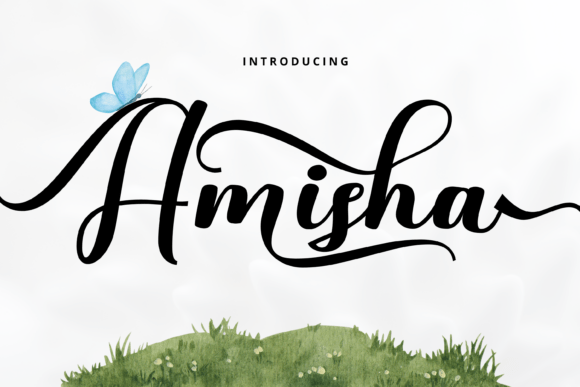
The Perfect Script Font for Your Next Design Project
As a designer, there’s nothing quite like the thrill of finding the perfect font to bring your vision to life. You’ve spent hours poring over samples, trying to find that elusive combination of style and sophistication that sets your project apart. And then, like a ray of sunshine on a cloudy day, you stumble upon it – a font that makes your heart skip a beat and your creativity soar. For many designers, that font is Amisha, a charming script font that flows with soft curves and gentle movement.
Amisha Font is more than just a pretty face – it’s a versatile tool that can add beauty and personality to any design project. Whether you’re crafting wedding stationery, creating social media graphics, or designing packaging, Amisha brings a touch of warmth and timeless elegance that’s hard to resist. And with its handwritten yet refined feel, it’s the perfect choice for adding a feminine touch to your work.
Amisha Font Key Features
- Unique Characteristic: Amisha Font features a unique blend of modern and traditional design elements, making it suitable for various design projects
- Font Style: Available in multiple weights (Light, Regular, Bold, Black) and styles (Italic, Oblique, Regular)
Amisha Font Review
I recently had the chance to work with the Amisha font, and I must say it’s a unique and intriguing typeface. Here are my thoughts on what works well and what doesn’t.
- ✨ Elegant and refined aesthetic: Amisha font has a distinctive feel to it, with clean lines and a sophisticated look that’s perfect for high-end branding and design projects.
- ✨ Versatility: Despite its elegant feel, Amisha font is surprisingly versatile and can be used in a variety of contexts, from body text to headlines.
- ✨ Great for digital design: Amisha font looks great on screens and is a great choice for digital design projects, such as website headers and mobile app interfaces.
- ⚠️ Limited language support: Amisha font seems to be primarily designed for Latin-based languages, which may limit its use in multilingual projects.
- ⚠️ Limited font sizes: While Amisha font looks great at larger sizes, it can become quite pixelated at smaller sizes, which may be a concern for designers who need to use it in tight spaces.
Overall, I think Amisha font is a great choice for designers who want to add a touch of elegance and sophistication to their projects. However, it may not be the best choice for designers who need to work with multiple languages or require a font that can scale down to very small sizes. With some careful use and consideration, Amisha font can be a great addition to any design project.
Tips for Getting the Most Out of Amisha Font
Amisha Font is a versatile font that can be used in a variety of designs, from elegant invitations to modern logos. Here are some tips for getting the most out of it:
- Combine Amisha Font with other fonts to create a visually appealing design.
- Use Amisha Font in bold or italic styles to add emphasis to your
Alternatives to Amisha Font for Designers
Monserrat is a sans-serif typeface that is highly legible and versatile. It is a great choice for headings, titles, and body text in digital design projects. Montserrat is more geometric and modern compared to Amisha Font, which has a more elegant and sophisticated feel.